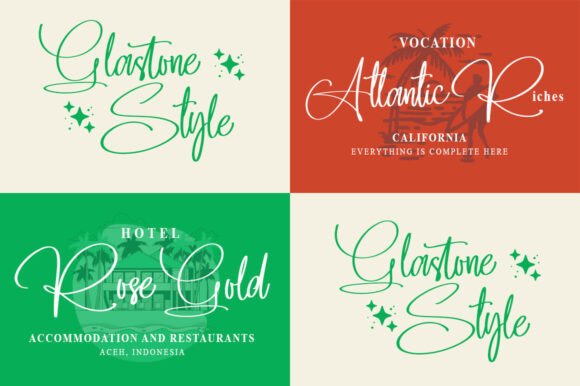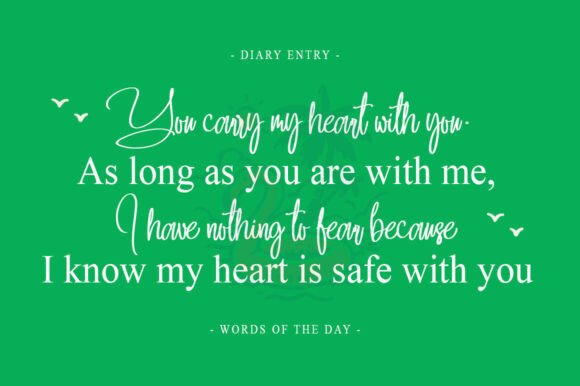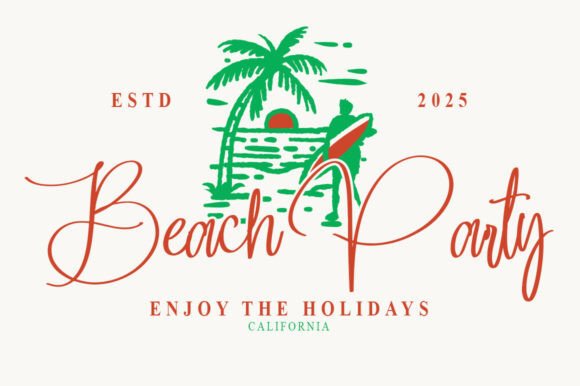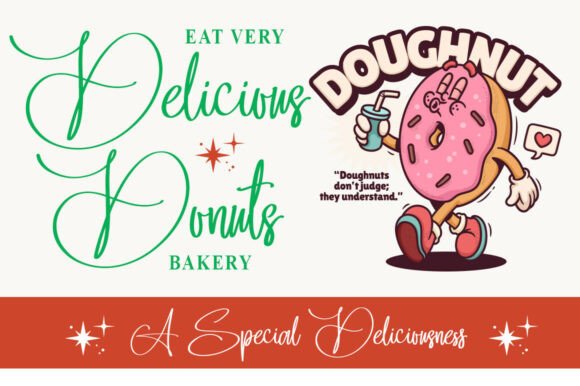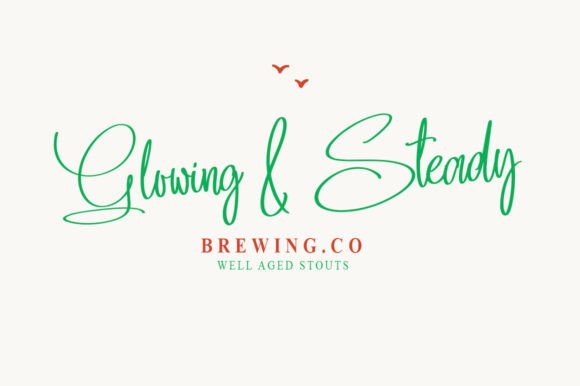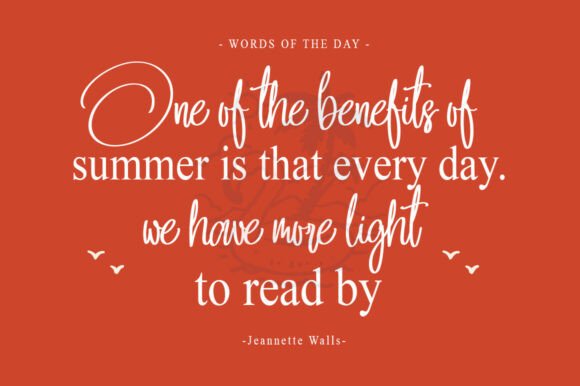
Introduction to Glastone Style Font
Do you remember the moment when a font’s unique charm instantly elevated your design project? For many of us, it’s that ‘aha’ moment when the perfect font transforms a simple idea into a stunning visual masterpiece. Today, we’re excited to introduce Glastone Style Font, a handcrafted font that’s poised to become your go-to design resource.
This meticulously constructed handwritten font is a treasure trove of artistry and intricacy, guaranteed to leave a lasting impression on your audience. With its elegant touch and charming personality, Glastone Style Font is the perfect companion for your creative projects, from free download to commercial use. Whether you’re designing invitations, food packaging, or titles, this high-quality font is sure to bring vitality to your alphabets and make your designs stand out.
Key Features of Glastone Style Font
- Unique, hand-drawn design with a touch of elegance, perfect for creative projects.
- High-quality font with crisp, clear lines and precise details, ideal for printing and digital applications.
- Perfect for designers and artists working on creative projects, such as posters, flyers, and brochures.
Honest Review: Glastone Style Font
I recently came across the Glastone Style Font and decided to give it a try for my latest creative project. As a designer, I’m always on the lookout for high-quality design resources that can elevate my work. In this review, I’ll share my thoughts on what works well and what could be improved.
- High-quality design: The Glastone Style Font is a beautifully crafted typeface with a unique and stylish aesthetic.
- Limited character set: The font’s character set is somewhat limited, which may not be suitable for designers who need a wide range of characters for their projects.
- Not ideal for small text: The font’s style may not be ideal for small text, as it can become difficult to read.
Overall, the Glastone Style Font is a solid addition to any designer’s toolkit. While it may have some limitations, its high-quality design and free download make it a worthwhile resource for creative projects. I’ll definitely be using it again in the future.
The Glastone Style Font is ideal for creative projects, such as brochures, posters, and social media graphics. It’s also a great design resource for bloggers and small business owners who want to add a professional touch to their branding.